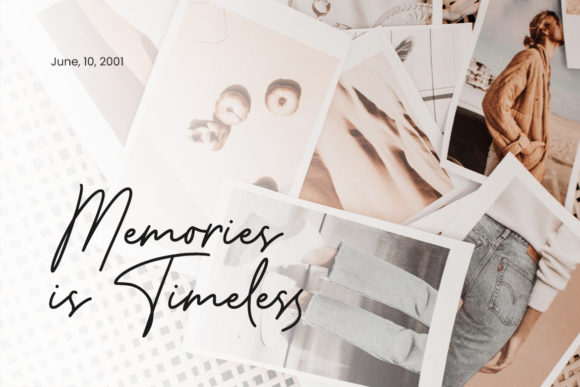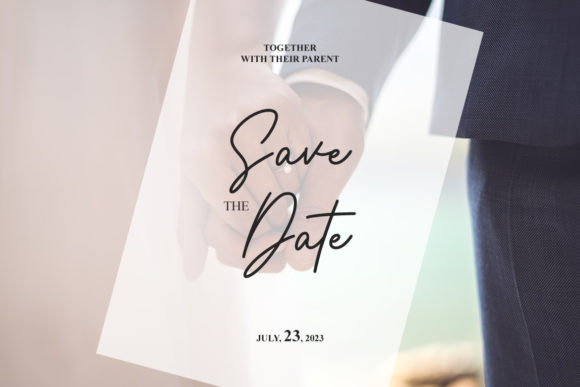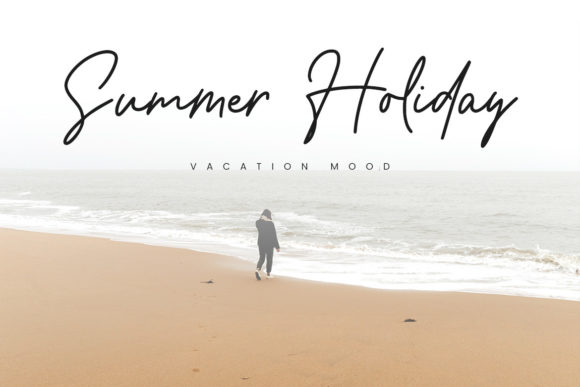
Introduction to Keanister Font
Keanister is a modern signature script with a natural & stylish flow.
This collection of scripts is perfect for personal branding, greeting cards, magazine, social media, print, packaging, and many more .
Key Features of Keanister Font
Why Choose Keanister Font?
Keanister Font offers exceptional quality and versatility, making it a valuable addition to your design toolkit. Whether you’re creating for personal projects or commercial use, Keanister Font delivers professional results.